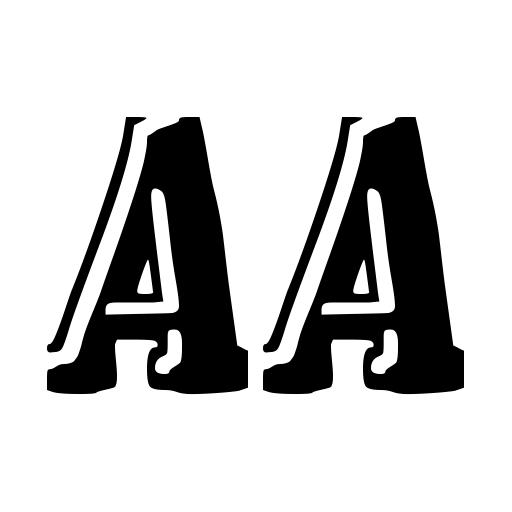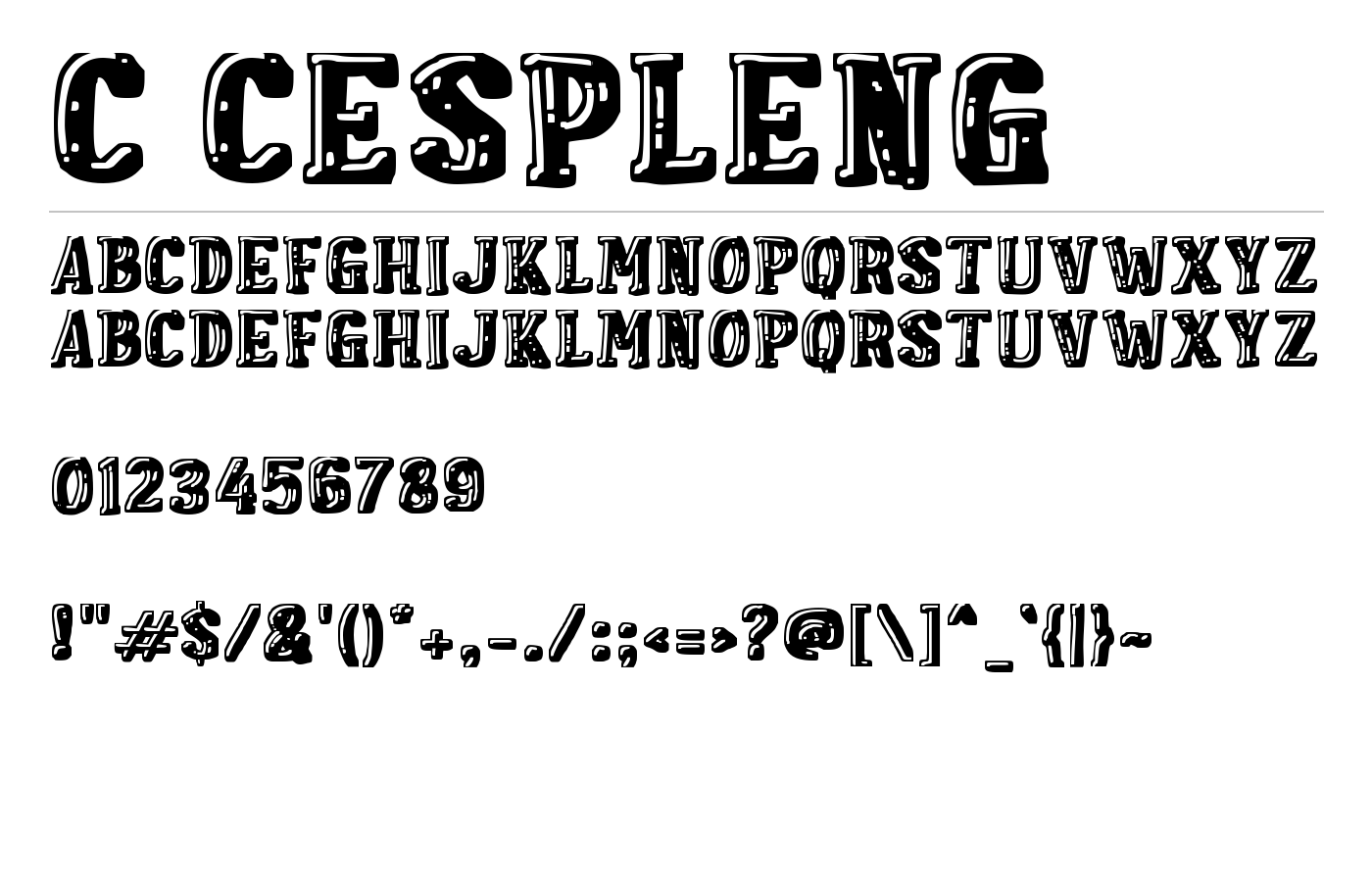
C Cespleng is a bold, decorative slab serif font with a playful, vintage-inspired style. Its chunky letterforms feature uneven edges and distressed textures, giving it a handcrafted, rustic feel that works well for eye-catching headlines, posters, and branding that needs a quirky, fun personality. This font is ideal for designs seeking a lively, informal look with a strong, memorable presence.
c Cespleng Font
About c Cespleng Font